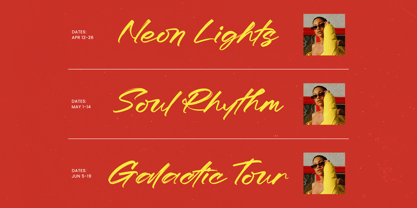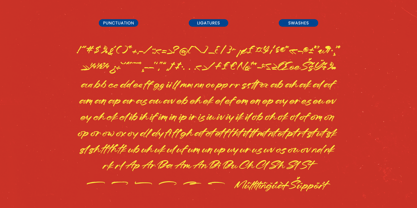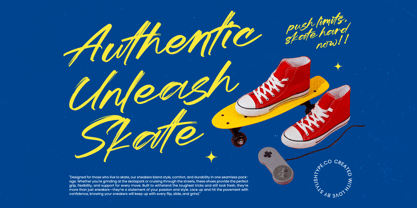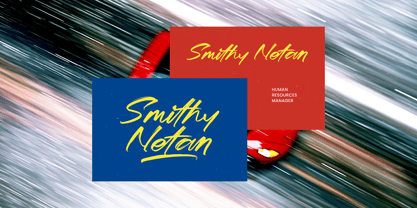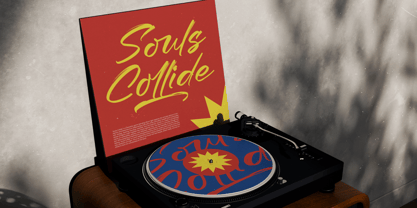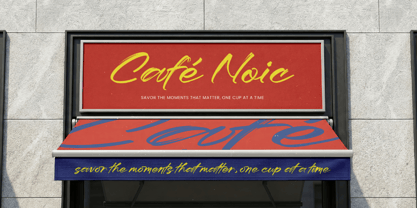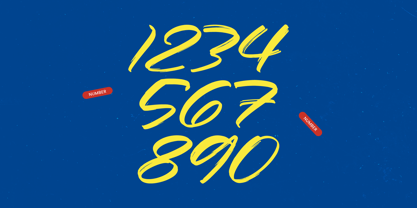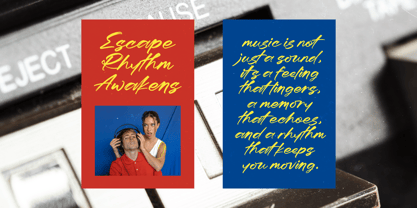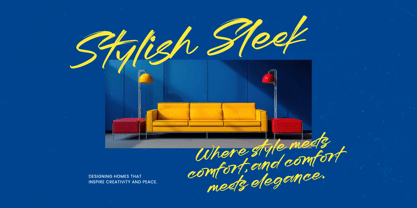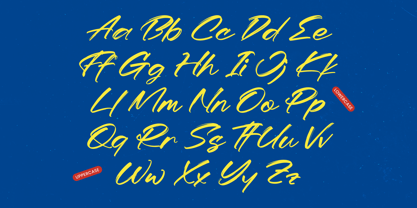
Bahery Stankif
by Stylishtype Studio
The Bahery Stankif Font Family was designed by Heru Utama Putra and published by Stylishtype Studio. Bahery Stankif contains 2 styles and family package options. More about this family
Bahery Stankif is a modern brush script font designed with bold strokes, dynamic energy, and expressive movement. Inspired by contemporary street culture and lifestyle aesthetics, this typeface delivers a confident handwritten style that feels raw yet refined. Perfect for branding, apparel graphics, music posters, social media content, packaging, and bold logo designs, Bahery Stankif creates instant visual impact with its strong brush texture and natural flow. Featuring 127 ligatures and 6 swashes, it offers flexible stylistic options to enhance authenticity and creative freedom. Whether used for standout headlines or edgy signature typography, Bahery Stankif brings attitude, personality, and modern brush flair to both print and digital projects.